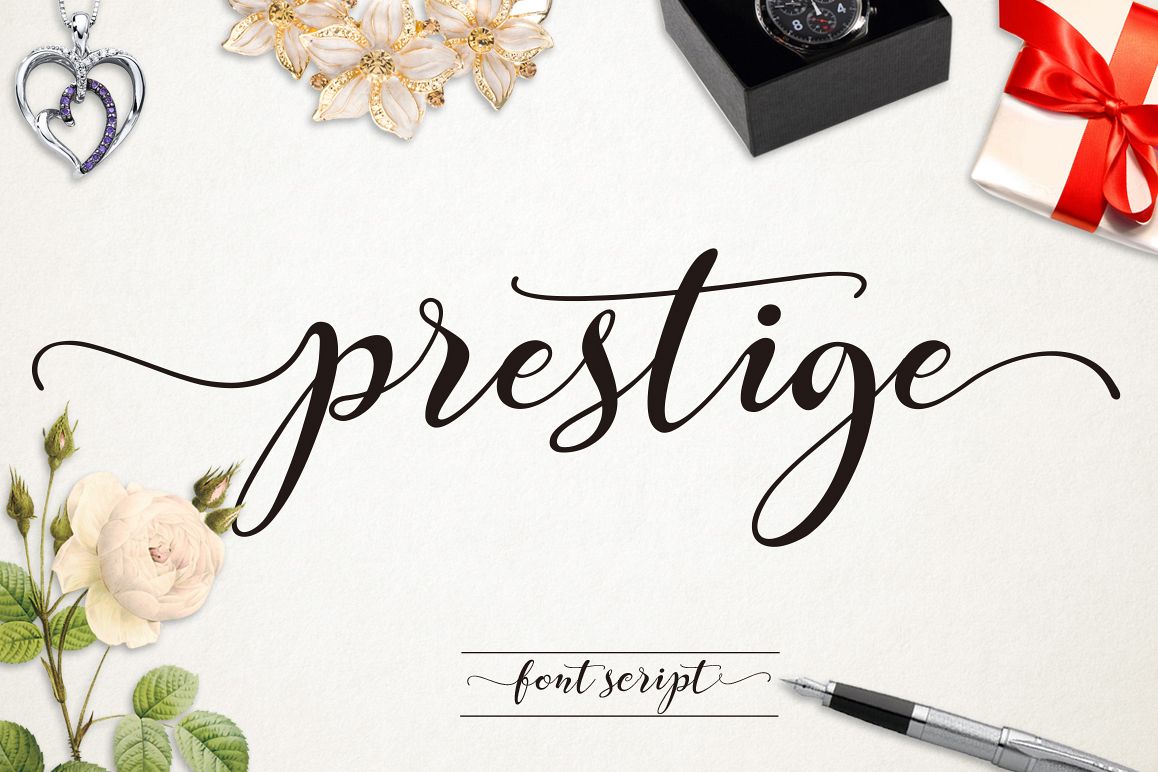
Prestige
Prestige.
Introducing Prestige Fontscript
Prestige Fontscript is a beautiful handmade script give the natural looks. Alternate character contain with opentype features. Stylistic alternates, Ligature and more. You can access all those alternate characters by using OpenType savvy programs such as Adobe Illustrator and Adobe InDesign.
Great for Apparel Brand, Logos, printed quotes, invitations, image overlays, greeting cards, product packaging, text headers, any greeting cards, book cover, Painting design style, or any design that needs natural and personal touch & whatever else your imagination holds! . Mix and match the alternate characters to add an attractive message to your design